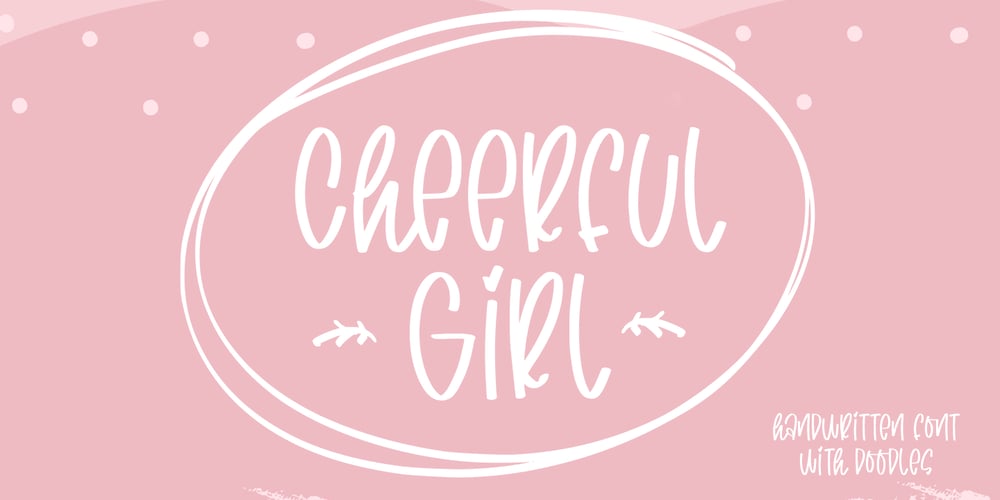
Cheerful Girl
Cheerful Girl Font Family was designed by Abo Daniel and published by Abo Daniel. Cheerful Girl contains 2 styles and family package options. introducingCHEERFUL GIRL- handwritten font with doodles -Cheerful girl is natural handwritten font.It is great for quotes, cards, banners, books, cutting, silhouettes, social media content and anything of craft project.I created the doodles to make this product perfect. and it is very easy to access.What’s included?- CHEERFUL GIRL- CHEERFUL GIRL DOODLESFeatures:- All Uppercase- Number & punctuations- Multilingual- Doodles- PUA encodedI hope you love it…regards,Abo Daniel Studio